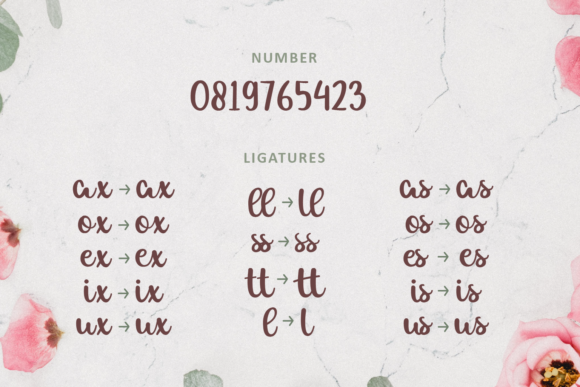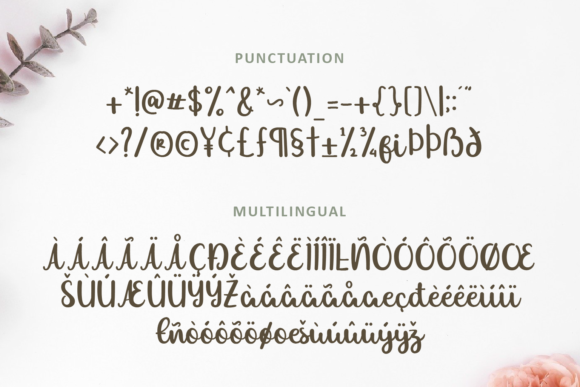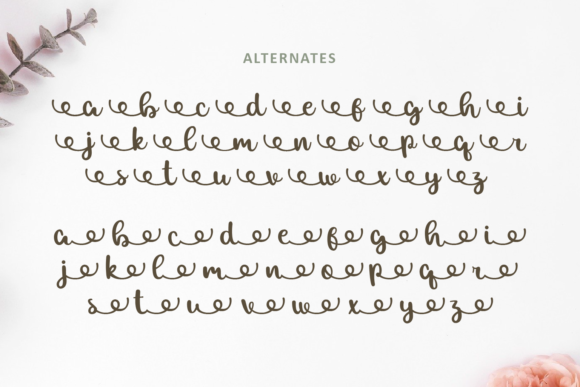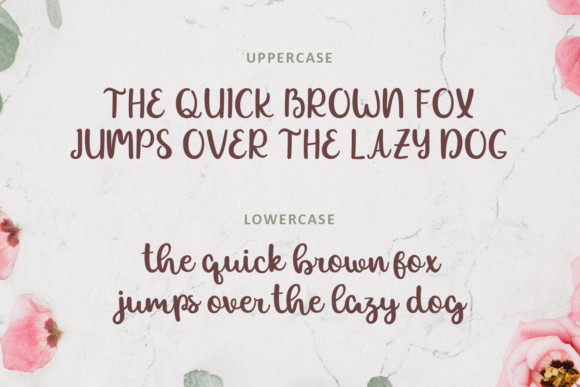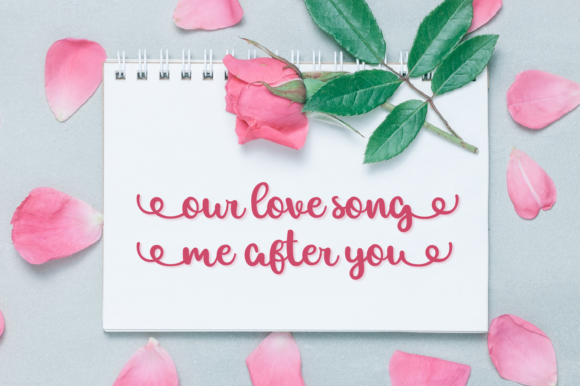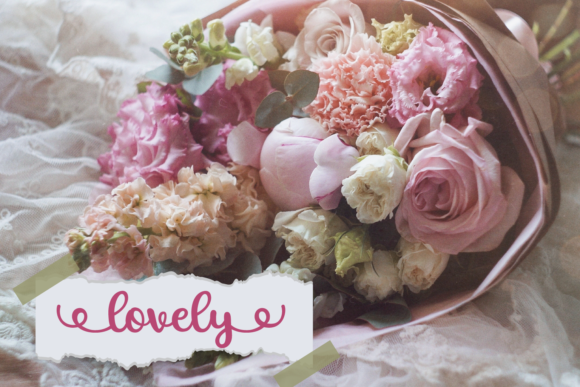
Introducing Allexa Font: The Elegant Handwritten Style for Your Designs
Are you a designer or crafter looking for a unique and elegant handwritten font to elevate your designs? Look no further than Allexa Font! This stunning font is perfect for adding a personalized touch to a variety of projects, from wedding invitations and thank you cards to logos and greeting cards.
What Makes Allexa Font So Special?
Allexa Font is a one-of-a-kind handwritten font that exudes elegance and sophistication. Its unique and flowing script makes it perfect for designs that require a touch of personality and whimsy. Whether you’re creating wedding stationery, branding materials, or social media graphics, Allexa Font is sure to make your designs stand out.
Perfect for a Variety of Designs
One of the best things about Allexa Font is its versatility. It looks beautiful on a wide range of designs, including:
• Thank you cards and greeting cards
• Logos and branding materials
• Blog and website headers
• And many more!
Why Choose Allexa Font?
There are many reasons why Allexa Font is the perfect choice for your designs. Here are just a few:
• Unique and elegant style: Allexa Font has a distinctive and sophisticated look that will set your designs apart from the rest.
• Handwritten with love: Each letter and swash is carefully crafted to give Allexa Font a personal and human touch.
• Easy to read and use: Despite its elegant style, Allexa Font is highly legible and easy to use in a variety of contexts.
Tips for Using Allexa Font in Your Designs
Here are a few tips for getting the most out of Allexa Font in your designs:
• Pair with contrasting fonts: Combine Allexa Font with a contrasting font to create visual interest and hierarchy in your designs.
• Experiment with colors and textures: Try out different colors and textures to add depth and personality to your designs.
• Use swashes and flourishes: Take advantage of Allexa Font’s beautiful swashes and flourishes to add a touch of elegance to your designs.
Allexa Font is a truly unique and elegant handwritten font that’s perfect for designers and crafters looking to add a touch of personality to their designs. With its versatility, legibility, and beautiful style, Allexa Font is sure to become a go-to choice for a wide range of projects. So why wait? Download Allexa Font today and start creating stunning designs that will leave a lasting impression!